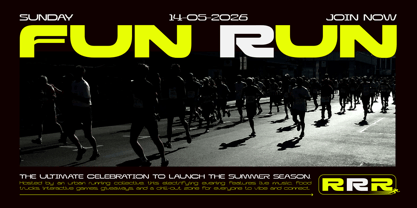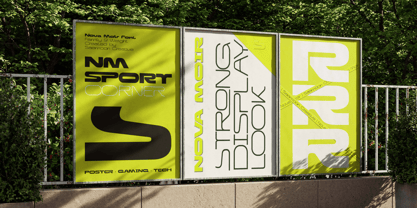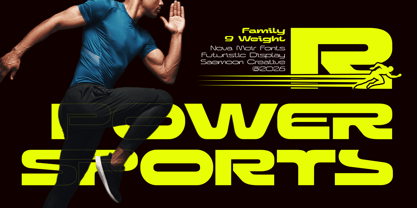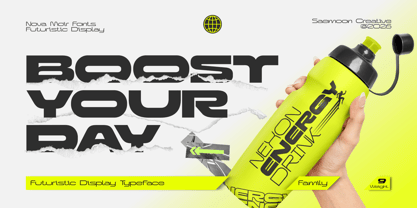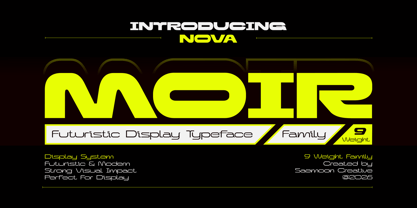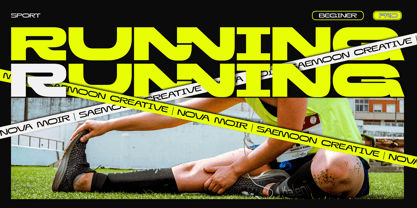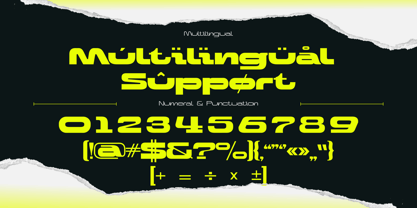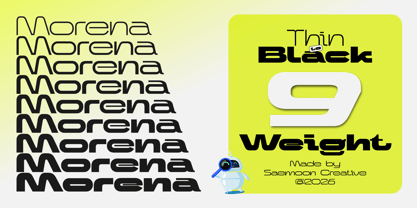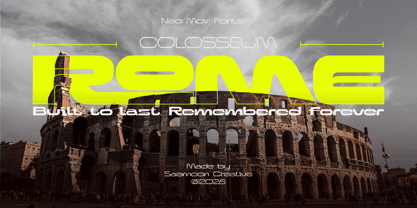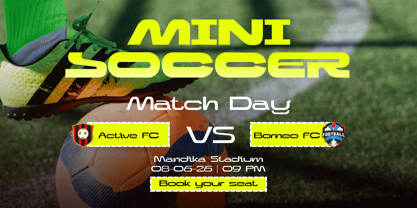
Nova Moir
Introducing Nova Moir — a futuristic display typeface designed with bold geometric forms, smooth techno-inspired curves, and a strong modern character. Created to deliver maximum visual impact, Nova Moir brings a sharp futuristic atmosphere that stands out across both digital and print designs.
Inspired by sci-fi visuals, cyberpunk culture, and modern technology aesthetics, Nova Moir is perfect for posters, gaming titles, esports branding, music artwork, UI headlines, automotive projects, futuristic editorials, and experimental visual concepts.
Nova Moir comes with a complete 9-weight family ranging from Thin to Black, offering wide typographic flexibility for various design needs, from minimal futuristic layouts to bold high-impact compositions. Each weight is carefully crafted to maintain consistency, readability, and its distinctive futuristic personality.
To give you greater creative freedom, Nova Moir also includes a variety of stylistic alternates and unique ligatures that enhance the futuristic character of the typeface. These features allow you to create more dynamic, customized, and eye-catching typography with ease.
Whether you are building a modern brand identity, creating cyber-inspired visuals, or designing next-generation display layouts, Nova Moir is ready to bring a powerful contemporary edge to every creative project.